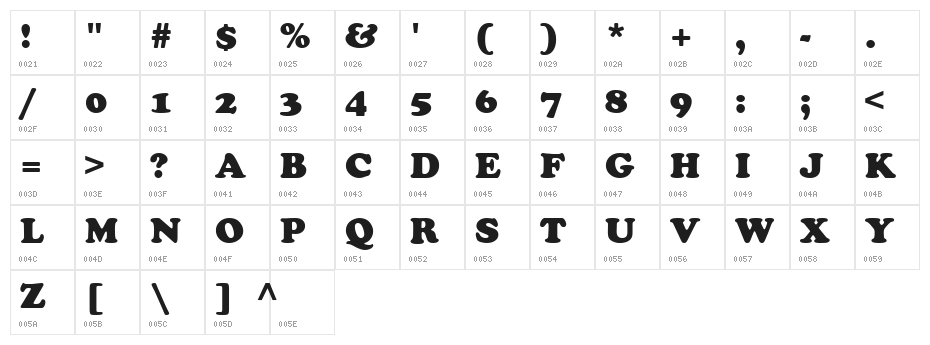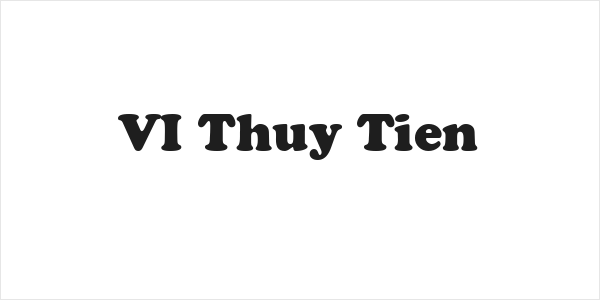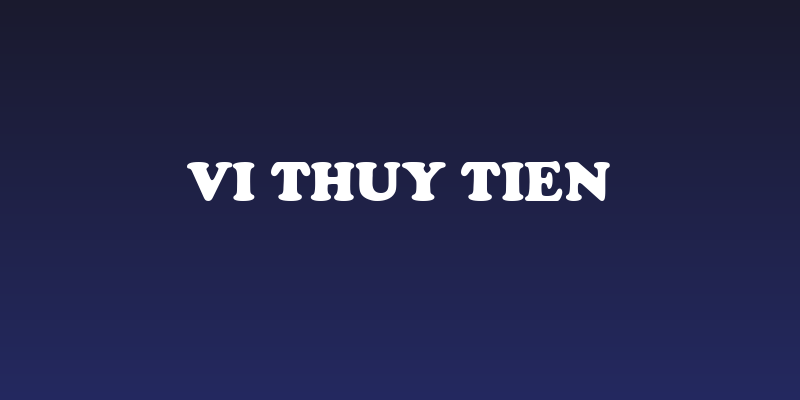
VI Thuy Tien Font
VI Thuy Tien Description
This font features a bold and playful design with thick, rounded strokes that give it a friendly and approachable appearance. The characters are well-defined with a consistent weight throughout, making it highly legible. Its unique style is characterized by slightly exaggerated curves and a robust presence, which adds a touch of whimsy and charm. The font maintains a uniform width across all characters, providing a balanced and cohesive look. The spacing between characters is normal, ensuring readability while maintaining its distinctive style. This font is versatile and can be used in various design contexts where a bold and engaging typeface is desired.
| Proposed Projects | Ideal for children's books, playful branding, posters, and creative projects that require a fun and engaging typeface. |